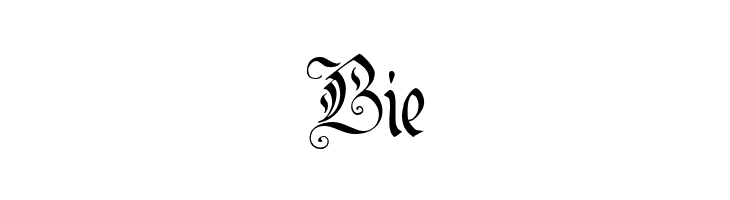
A bold, intricate Blackletter font with medieval flair.
A bold, angular font with a historical and dramatic style.
A classic blackletter font with ornate, gothic styling and dramatic flourishes.
A bold, angular font with a modern blackletter style.